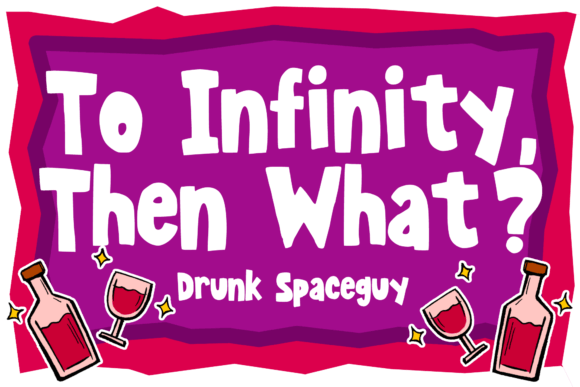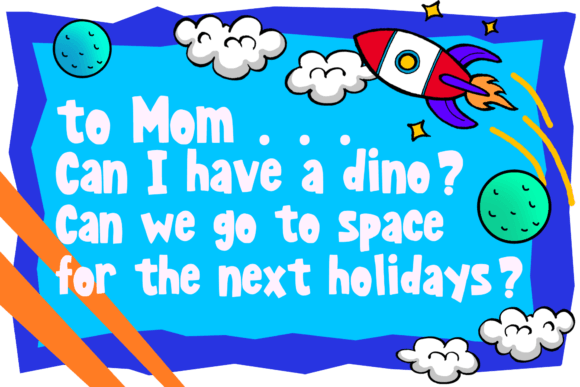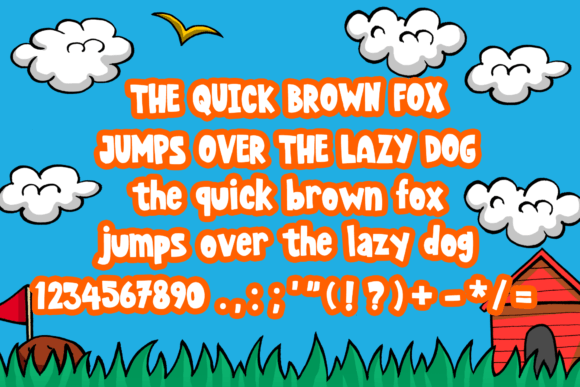
Introducing Authentic Comic: The Ultimate Playful Cartoon Display Font
Are you tired of using the same old fonts for your designs? Do you want to add a bold and fun touch to your creations? Look no further than Authentic Comic, a playful cartoon display font that’s perfect for a wide range of projects. In this article, we’ll explore the features and benefits of Authentic Comic, and show you how to use it to create fabulous designs that will leave a lasting impression.
What is Authentic Comic?
Authentic Comic is a unique and eye-catching font that’s inspired by the classic cartoons of our childhood. It’s a display font that’s designed to make a statement, with bold lines, bright colors, and a playful personality. Whether you’re a designer, crafter, or DIY enthusiast, Authentic Comic is the perfect choice for anyone looking to add a touch of fun and whimsy to their designs.
What Can I Use Authentic Comic For?
The possibilities are endless with Authentic Comic! This versatile font can be used for a wide range of projects, including:
- T-shirts and clothing: Add a bold and playful touch to your apparel designs with Authentic Comic.
- Book designs: Use Authentic Comic to create eye-catching book covers, titles, and headings.
- Summer party needs: Create fun and festive party decorations, invitations, and banners with Authentic Comic.
- Greeting cards: Add a personal touch to your greeting cards with Authentic Comic’s playful and cheerful vibe.
- Stickers: Create fun and colorful stickers with Authentic Comic that are perfect for kids and adults alike.
- Posters: Use Authentic Comic to create bold and eye-catching posters for movies, events, or promotions.
- Banners: Create festive and fun banners with Authentic Comic that are perfect for parties, events, or celebrations.
Why Choose Authentic Comic?
So why choose Authentic Comic over other fonts? Here are just a few reasons why Authentic Comic stands out:
- Unique and eye-catching: Authentic Comic is a one-of-a-kind font that’s sure to grab attention.
- Playful and fun: Authentic Comic has a playful and cheerful vibe that’s perfect for designs that need a bit of personality.
- Versatile: Authentic Comic can be used for a wide range of projects, from apparel to book designs to party decorations.
Tips for Using Authentic Comic
Here are a few tips for using Authentic Comic to create fabulous designs:
- Experiment with colors: Authentic Comic looks great in bright, bold colors, so don’t be afraid to experiment and find the perfect hue for your design.
- Play with sizes: Authentic Comic can be used at a variety of sizes, from small and subtle to large and bold.
- Mix and match: Try pairing Authentic Comic with other fonts to create a unique and eye-catching design.
- Have fun: Most importantly, have fun with Authentic Comic! This font is all about adding a playful and cheerful touch to your designs, so don’t be afraid to get creative and try new things.
Authentic Comic is a playful cartoon display font that’s perfect for designers, crafters, and DIY enthusiasts who want to add a bold and fun touch to their designs. With its unique and eye-catching style, versatile uses, and easy-to-use format, Authentic Comic is the perfect choice for anyone looking to create fabulous designs that will leave a lasting impression. So why wait? Try Authentic Comic today and see the fun and cheering vibes it can bring to your designs!